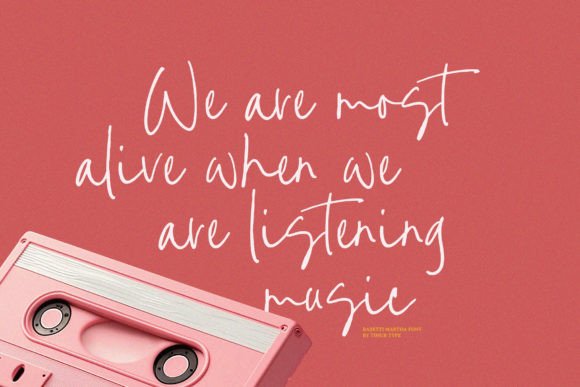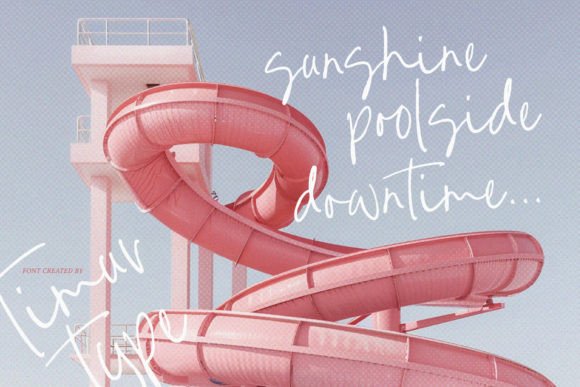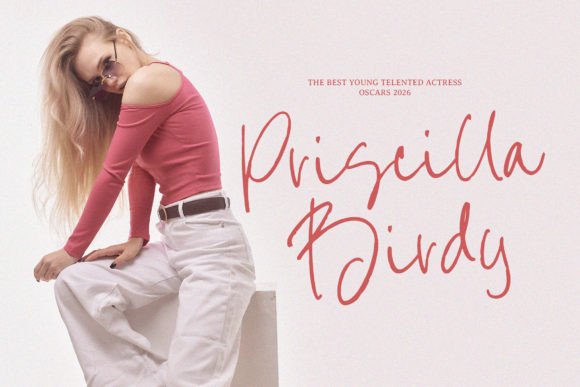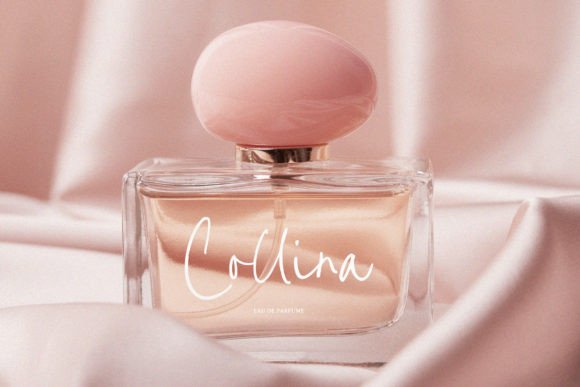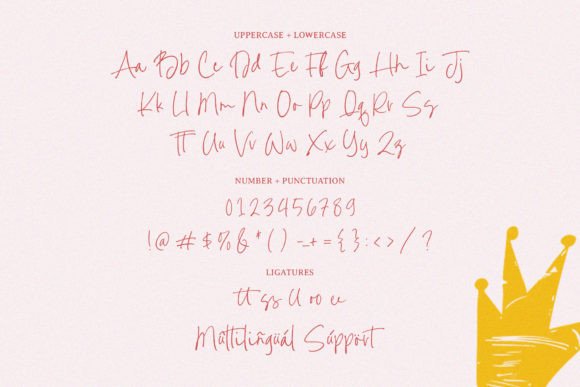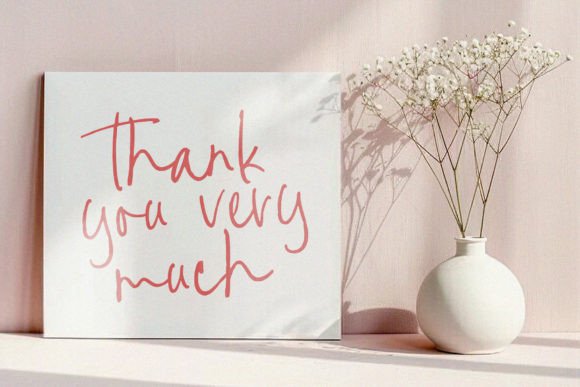
Babetti Martha Font: Unleashing the Power of Handwritten Authenticity
In the world of typography, few fonts manage to capture the essence of spontaneity and personal expression as effectively as the Babetti Martha font. This distinctive handwritten script font is characterized by its rugged, unpolished charm, making it an ideal choice for designers and crafters looking to infuse their projects with a touch of individuality and authenticity.
The Unique Charm of Babetti Martha
Babetti Martha stands out with its expressive, uneven strokes and dynamic line variations. Unlike polished, uniform fonts, Babetti Martha embodies the imperfections and quirks of handwriting, bringing a sense of warmth and personality to any design. Its raw, artistic flair is perfect for projects that require a human touch, whether it’s for branding, invitations, or creative designs.
Key Features of Babetti Martha Font
- Handwritten Script Style: Babetti Martha boasts a genuine handwritten look, complete with the subtle inconsistencies that make handwriting so unique.
- Expressive Strokes: The font features varying stroke widths and a dynamic rhythm, giving it a lively and spontaneous feel.
- Rugged Charm: The unpolished nature of the font lends it a rustic, artisanal quality that’s perfect for designs aiming for an authentic look.
- Versatility: Suitable for a wide range of applications, from digital designs to print materials.
Applications of Babetti Martha Font
The versatility of Babetti Martha makes it an excellent choice for various design projects. Here are some of the areas where this font truly shines:
Branding and Logo Design
In branding, establishing a unique identity is crucial. Babetti Martha’s distinctive style can help brands stand out with a memorable and personal touch. Its rugged charm and handwritten authenticity make it perfect for:
- Logos: Create a logo that tells a story and connects with your audience on a personal level.
- Packaging: Add a personal touch to your product packaging to differentiate it on store shelves.
- Marketing Materials: Use the font in brochures, flyers, and business cards to convey a sense of authenticity and approachability.
Invitations and Stationery
For personal or corporate events, invitations set the tone for the occasion. Babetti Martha can add a warm, inviting feel to:
- Wedding Invitations: Bring a touch of romance and uniqueness to your wedding invites.
- Party Invitations: Make your event invitations stand out with a playful and personal touch.
- Stationery: Elevate your personal or business stationery with a font that exudes warmth and character.
Creative Designs
For artists, designers, and creatives, Babetti Martha offers endless possibilities:
- Art Projects: Incorporate the font into your artwork for an added layer of expression.
- Typography Posters: Create striking posters that showcase the beauty of handwritten typography.
- Digital Content: Use the font in your digital designs, such as social media graphics and website headers, to add a personal touch.
Why Choose Babetti Martha?
In a sea of uniform and polished fonts, Babetti Martha offers a refreshing alternative. Its unique blend of ruggedness and charm makes it an excellent tool for designers and crafters looking to create something truly distinctive. By choosing Babetti Martha, you can:
- Add Authenticity: Bring a genuine, handcrafted feel to your designs.
- Stand Out: Differentiate your projects with a font that’s anything but ordinary.
- Express Creativity: Use the font to express your creativity and add a personal touch to your work.
Babetti Martha is more than just a font – it’s a statement. It’s perfect for those who value individuality and authenticity in their designs. Whether you’re working on a branding project, creating invitations, or exploring your artistic side, Babetti Martha offers the perfect blend of rugged charm and expressive elegance. Embrace the power of handwritten authenticity and let Babetti Martha transform your designs into unique pieces of art.